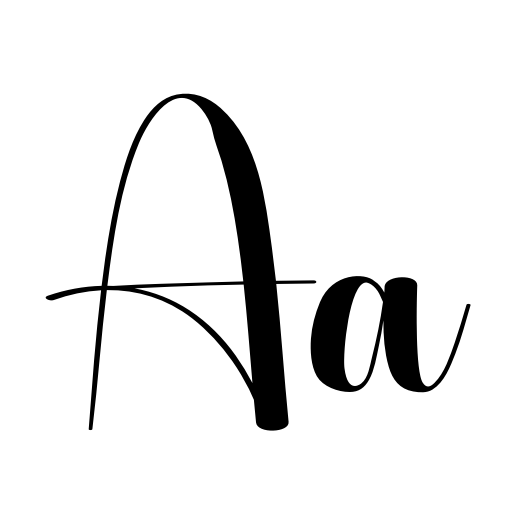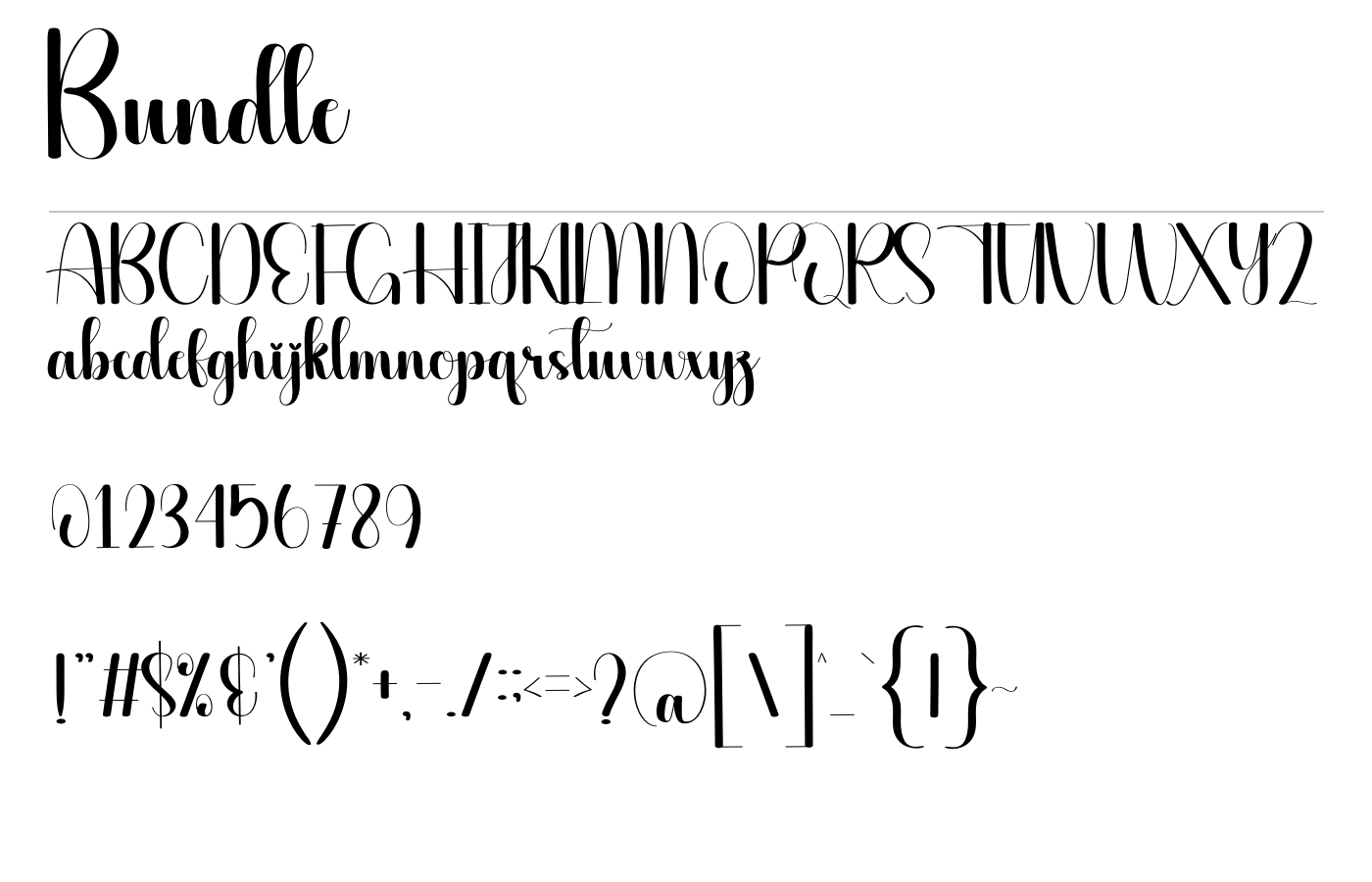
Bundle Font is an elegant and modern script typeface with a high contrast between thick and thin strokes, featuring tall, narrow letterforms and delicate, flowing swashes. Its stylish uppercase letters combine fine lines with bold curves, while the lowercase maintains a smooth, graceful rhythm, making it perfect for luxury branding, wedding invitations, and sophisticated editorial designs. This font’s unique blend of refined calligraphy and contemporary flair brings a chic, artistic touch to headlines, logos, and packaging.
Bundle Font
About Bundle Font